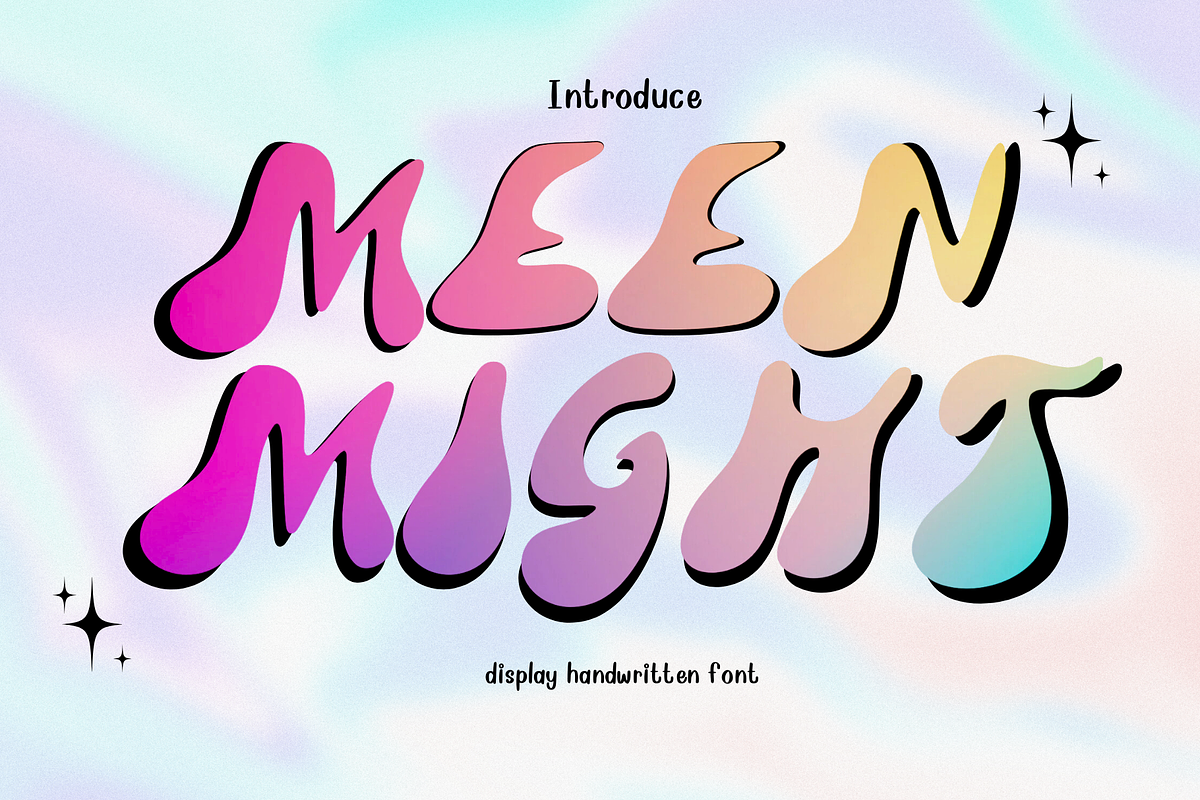
The Meen Might Font Free Download is a bold and distinctive typeface that combines modern style with strong visual appeal. Perfect for logos, headlines, posters, and any project that needs a powerful and attention-grabbing font. Please note, for commercial use, a license must be purchased. You can download it for free for testing purposes.
With its strong, clean lines and unique character, the Meen Might Font Free Download is perfect for designs that require a bold and modern touch. Whether you're working on branding, digital content, or marketing materials, this font ensures that your work makes a memorable statement.